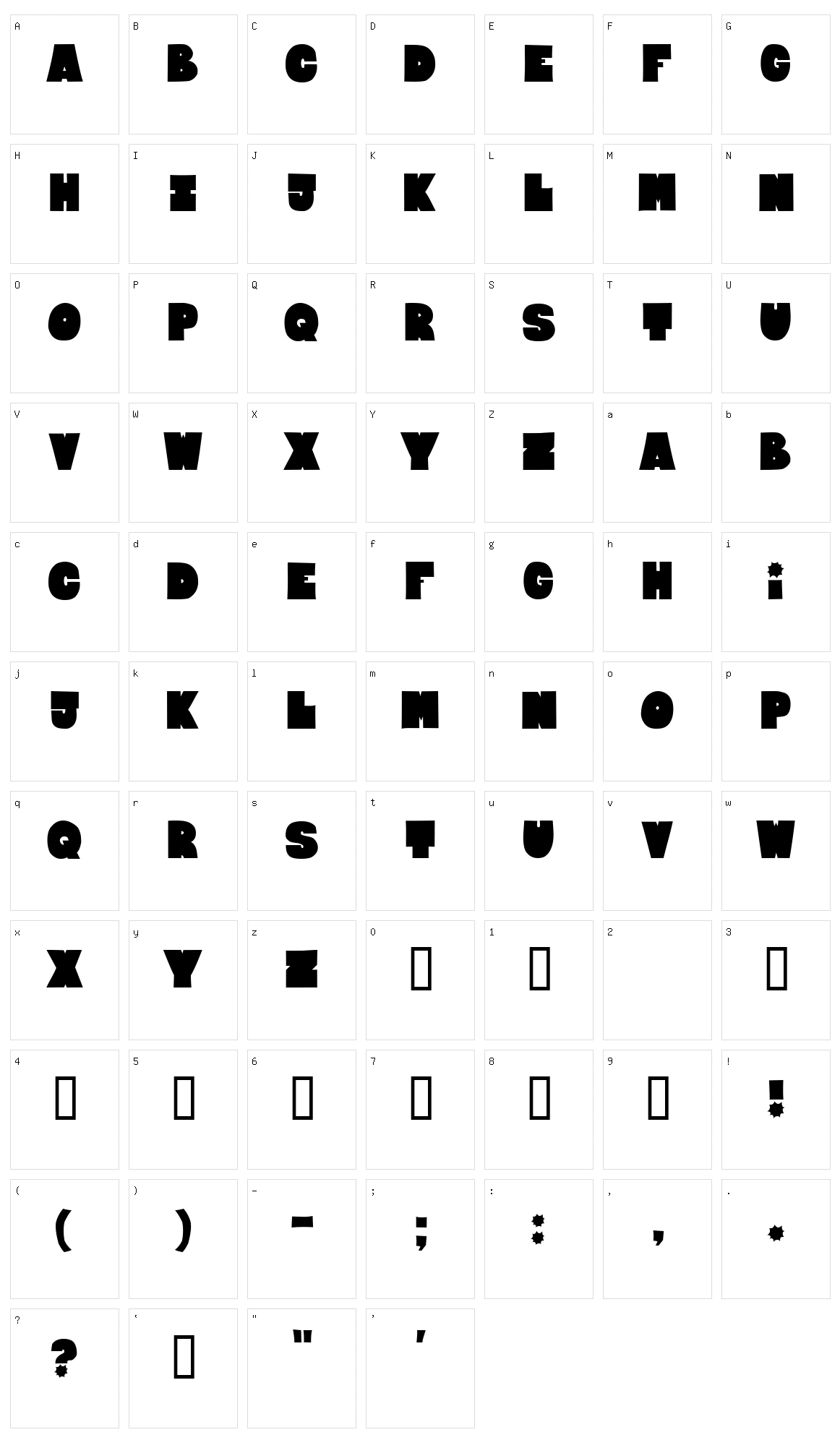
The free font Bloxxxx is carefully designed by ZetaFonts, showcasing a thoughtful balance of creativity and usability and falls under the Cartoon font style. When you download the ZIP file, it contains only 6.55 KB of font files, making it lightweight and quick to download. Please review the license details below to understand permitted usage and distribution rights. If license information is not available, we recommend using this font for personal projects only or contacting the author directly for commercial usage permissions.